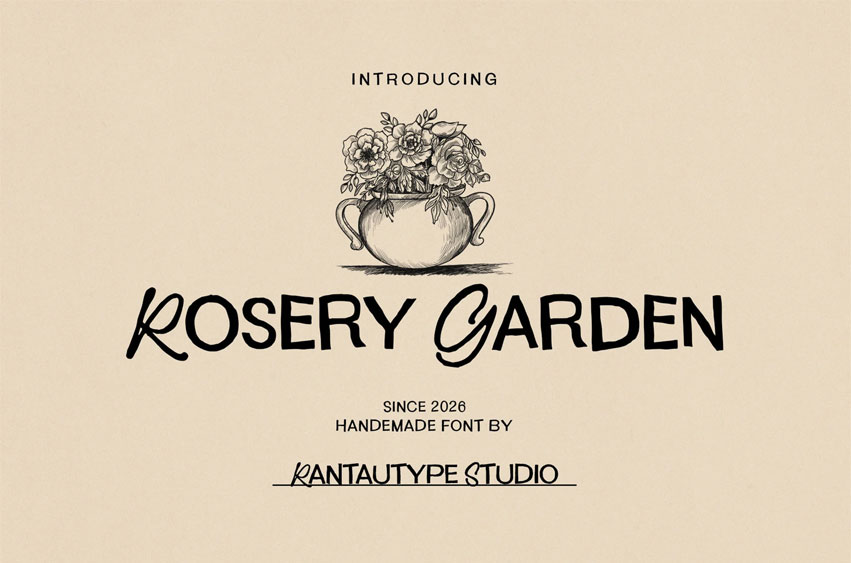
Rosery Garden Font is aesthetic handwriting font with rough style.
Rosery Garden is a perfectly choice for any creative endeavor, creating, modern, lifestyle design such as logotype, title, cover, branding, invitations, wedding designs, display and magazine, social media posts, advertisements, printed quotes, product packaging, corporate brand, product designs, labels, photography, watermarks, special events and any other project with modern touch.